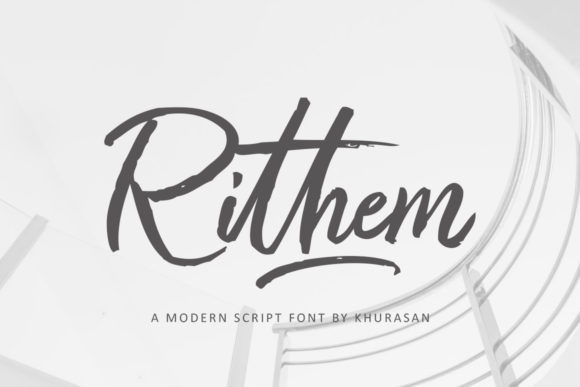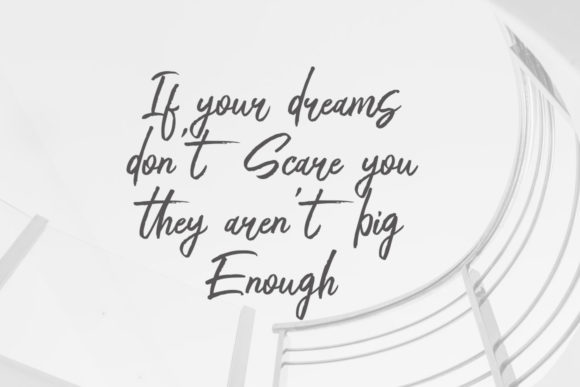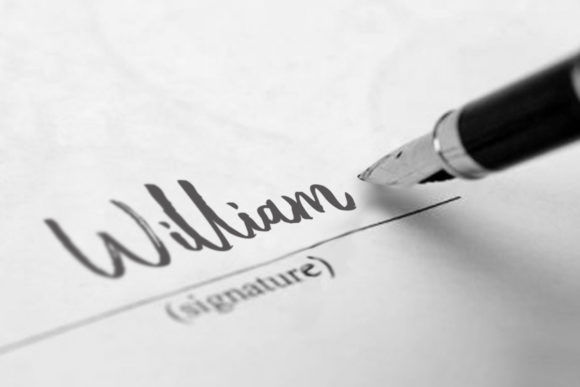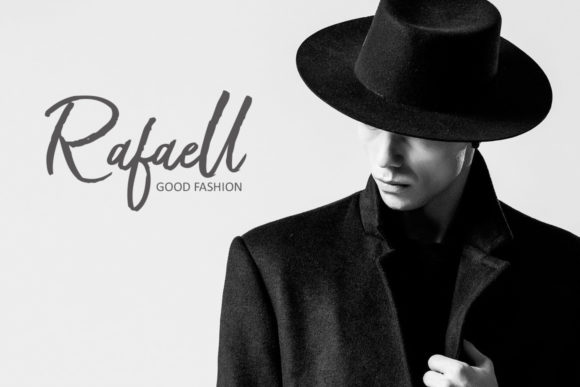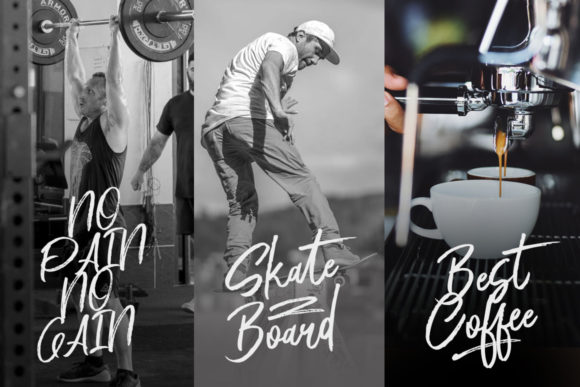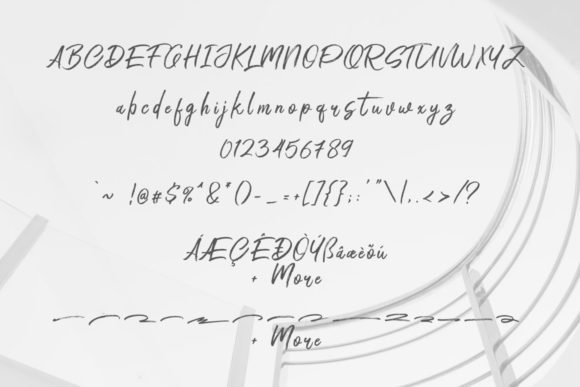
HomeScript FontsRithem Font Script Fonts Rithem Font FacebookXPinterestWhatsApp Rithem Font Poster 2 Rithem Font Poster 3 Rithem Font Poster 4 Rithem Font Poster 5 Rithem Font Poster 6 About Rithem Font Rithem is a fresh handwritten brush font with an elegant feel. It will add a retro touch to any design project. DOWNLOAD ON CREATIVE FABRICAThis font is sold and delivered by Creative Fabrica. Font Canyon may earn a commission if you buy through this link. People also explored New Gerbil Font Typography Font Night Control Reghinatha Script Font Van Mockup Carried Away Distressered Font Dillon the Cat Font Restoration Font 349 0 TagsRithem Font Previous articlePlaylist FontNext articleRemedios Font LEAVE A REPLY Cancel reply Comment: Please enter your comment! Name:* Please enter your name here Email:* You have entered an incorrect email address! Please enter your email address here Website: Save my name, email, and website in this browser for the next time I comment. Personal Use Free Authurium Personal Use Free Read more about this font Engebrechtre Personal Use Free Read more about this font Hello Ketta Personal Use Free Read more about this font Rumaniaya Personal Use Free Read more about this font BLOG Best Fonts for YouTube Videos: Make Your Thumbnails Stand Out Best Fonts for YouTube Videos: Make Your Thumbnails Stand Out Choosing the right font can make a massive difference in how your YouTube videos perform.... To increase your work productivity, choose the most readable fonts. Top 10 Handwritten Fonts That Elevate Your Designs How to Cut Any Font on Cricut: Convert a Font to SVG (Free)